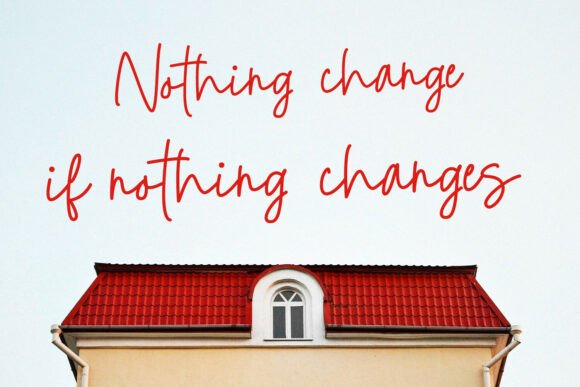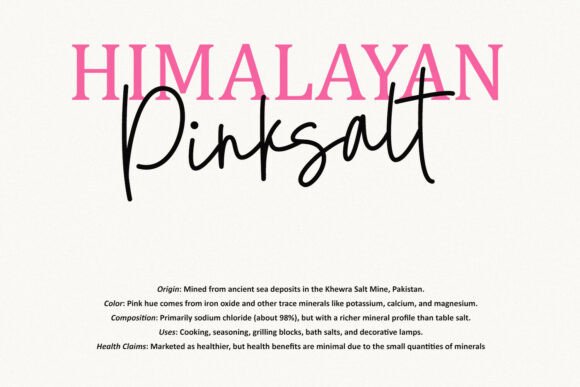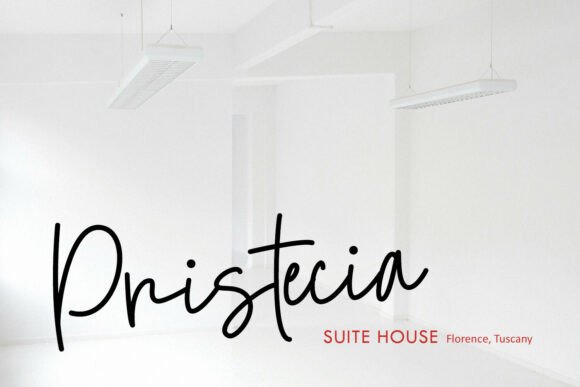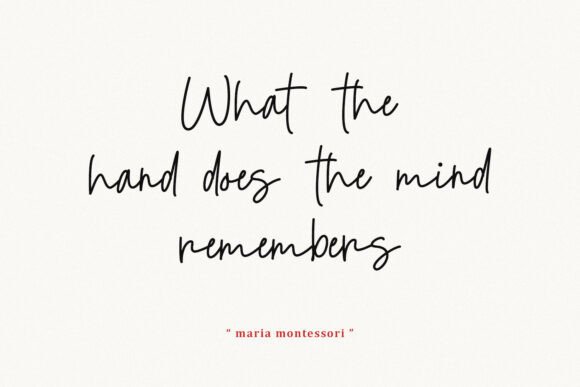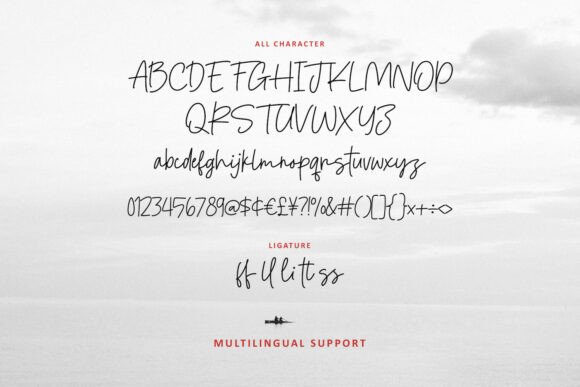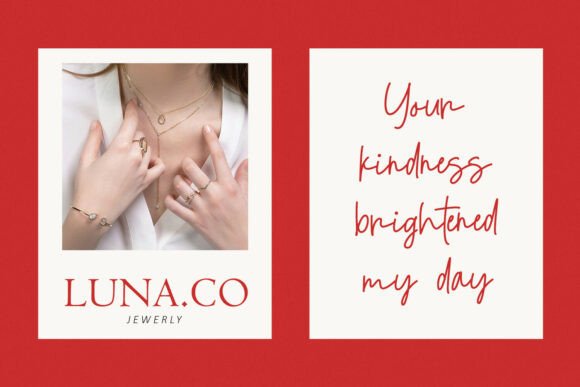
The Elusive Perfect Font: My Encounter with Eventios Redpotion
I’ll never forget the countless hours I spent searching for the perfect font for a client’s luxury wedding invitation suite. The project required a font that exuded elegance, sophistication, and a touch of modern whimsy. As I scrolled through font after font, I found myself stuck in a sea of sameness – until I stumbled upon Eventios Redpotion.
This stylish monoline signature font immediately caught my eye with its fluid, handcrafted strokes and consistent line weight. It was as if the font was whispering, “I’ve got this.” In this article, I’ll share my experience with Eventios Redpotion, its features, and how to make the most of this beautiful font in your creative projects.
- ✨ Effortless elegance: Eventios Redpotion brings a level of sophistication to any project.
- ✅ Contemporary charm: The font’s modern feel makes it perfect for luxury brands and high-end designs.
- 💫 Fluid strokes: The handcrafted strokes mimic natural handwriting, adding a personal touch.
- 🌎 Multilingual support: The comprehensive character set includes support for multiple languages.
While Eventios Redpotion is an exceptional font, there are a few things to keep in mind:
- ⚠️ Limited use in body text: Due to its elegant, cursive nature, it may not be the best choice for lengthy paragraphs.
- 🤔 Ligatures and alternates: Some users might find the additional features and glyphs overwhelming at first.
Exploring Alternatives: Similar Fonts to Eventios Redpotion
If you’re looking for similar fonts or want to explore other options:
- Playfair Display: A luxurious, elegant font perfect for high-end branding and editorial design.
- Pacifico: A beautiful, modern script font ideal for creative projects that require a touch of whimsy.
- Great Vibes: A stylish, handwritten font suitable for wedding invitations, social media quotes, and more.
- Allura: A elegant, cursive font perfect for luxury brands, wedding designs, and high-end marketing materials.
The Story Behind Eventios Redpotion: Designer Inspiration
Eventios Redpotion was crafted with the intention of creating a modern, elegant font that captures the essence of luxury and sophistication. The designer aimed to create a font that would bring a personal touch to creative projects while maintaining a level of refinement and poise. With its fluid strokes and comprehensive character set, Eventios Redpotion is a testament to the power of typography in elevating design.
Q: What type of projects is Eventios Redpotion best suited for?
A: Eventios Redpotion is perfect for luxury branding, wedding invitations, social media quotes, and high-end marketing materials.
Q: Can I use Eventios Redpotion for body text?
A: While possible, Eventios Redpotion is best used for headlines, titles, or short paragraphs due to its elegant, cursive nature.
Q: Does Eventios Redpotion support multilingual languages?
A: Yes, Eventios Redpotion has a comprehensive character set that includes support for multiple languages.